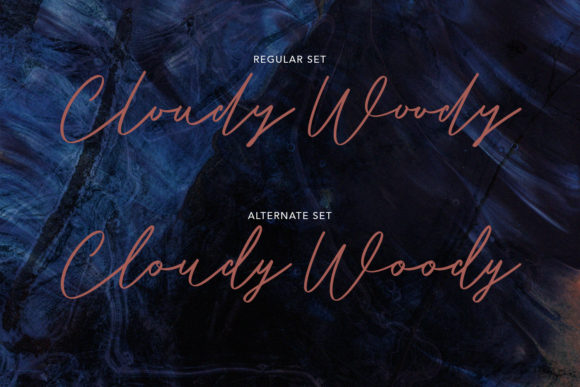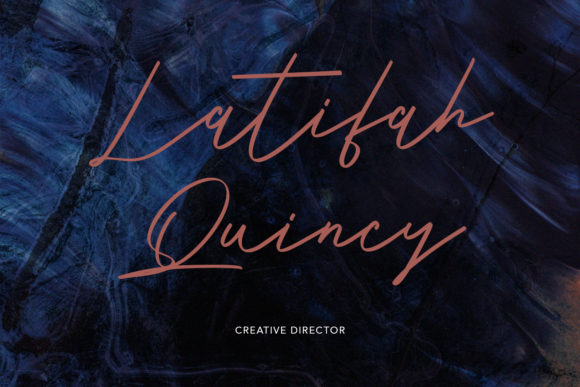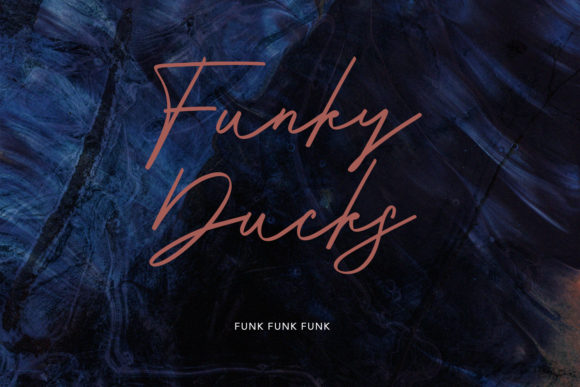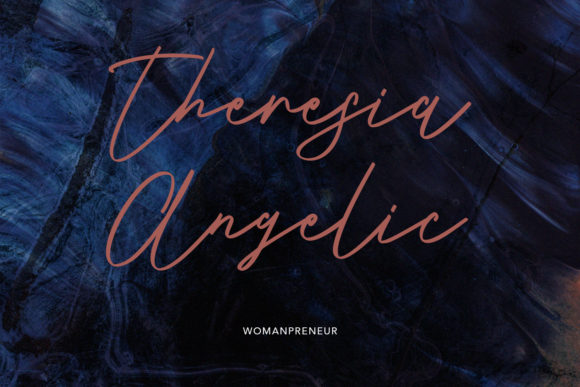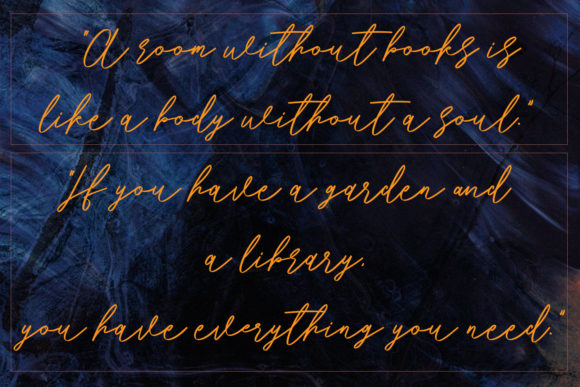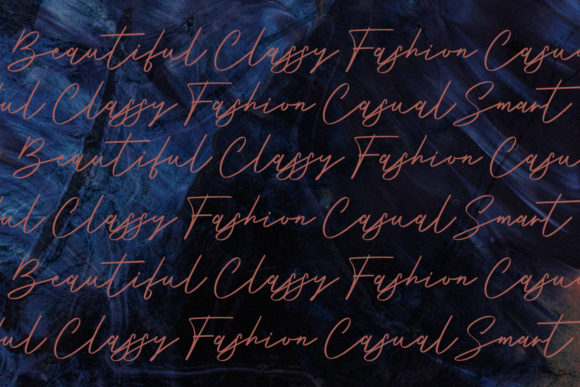
Introduction to Krysttal Spears Font
Have you ever stared at a blank canvas, waiting for inspiration to strike? That’s exactly where I was when I discovered the enchanting Krysttal Spears Font. Its delicate and elegant handwritten style had me captivated from the very first glance. As a designer, I can attest to the importance of having a high-quality design resource like this font in your arsenal.
With its well-rounded letters and transparent background, the Krysttal Spears Font is perfect for any creative project that requires a touch of sophistication. Whether you’re working on a brochure, a wedding invitation, or a social media graphic, this font is sure to elevate your design to the next level. And the best part? It’s available for free download, making it an invaluable asset for designers of all levels.
Key Features of Krysttal Spears Font
- High-quality design resource suitable for various creative projects
- Transparent background for seamless integration into any design
- Unique, modern design aesthetic that adds a touch of sophistication to any creative project
Honest Review: Krysttal Spears Font
I recently stumbled upon the Krysttal Spears Font, and I must say it’s been a great addition to my design resource library. This font is perfect for any creative project that requires a touch of elegance and sophistication.
One of the standout features of the Krysttal Spears Font is its high quality and versatility. It’s available for free download, making it an excellent option for designers on a budget. The font’s transparent background also allows for seamless integration with various design elements.
- ✨ Transparent background for easy integration with design elements
- ⚠️ Limited character set, which may not be suitable for extended text-based projects
- ⚠️ Not ideal for bold or headline-heavy designs, as it can get lost in the text
Overall, the Krysttal Spears Font is a solid choice for designers looking for a high-quality, elegant font for their creative projects. While it may have its limitations, it’s definitely worth considering for your next design project.
The Krysttal Spears Font is a high-quality design resource perfect for creative projects. With its unique style and versatility, this font is ideal for a wide range of applications.
Tips for Getting the Most Out of Krysttal Spears Font
To get the most out of the Krysttal Spears Font, use it on a transparent background to create a clean and modern look. Experiment with different font sizes and styles to add visual interest to your design.
The Krysttal Spears Font is ideal for a wide range of creative projects, including logos, branding, and marketing materials. Its unique style and versatility make it a popular choice for designers and artists.